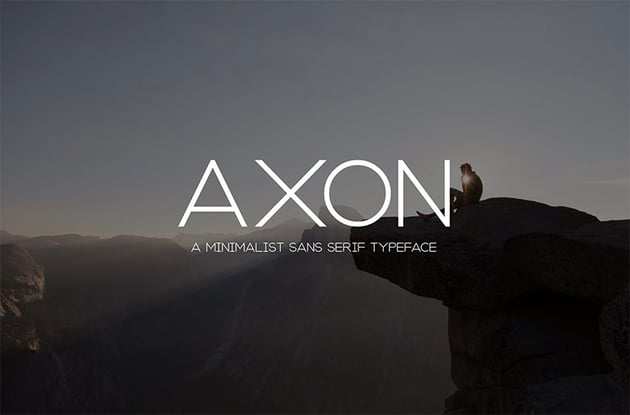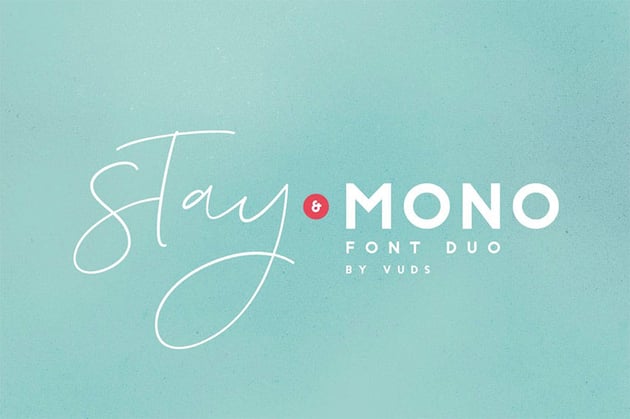
15 Best Minimalist Fonts (Clean Modern Fonts to Download Now)
Minimalistic fonts can be a versatile addition to your toolkit. In addition, the perfect minimalist font can help craft a clean, stylish look. Check out this list of modern minimalist fonts for some design inspiration.
15 Minimalistic Fonts to Download Now
1. Beckman Modern Minimalist Font Family (OTF, TTF)
How's this for a cool minimalist font? Minimal fonts like this one combine geometric elements with typography that's completely modern and eye-catching. Beckman offers six different font weights that can be mixed and matched to create your own unique look.
This font is a great choice for:
- If you're looking for dramatic display type but you still want it to fit a clean, modern aesthetic, a font like this could be a perfect choice.
- This font also has the potential to be displayed at different sizes as it stays pretty legible even when small.
- If your design already has a lot of geometric influence, this font could fit right in. Try pairing it with different shapes or lines to play into this aesthetic.
Keep an eye out for:
- This font may not be the strongest choice for body copy, as it is quite visually distinctive. It may prove to be more difficult to read a lot of text in this font.
- Try pairing this font with another neutral font, like a clean sans serif with fewer decorative elements.
2. Zevida Minimalist Sans Serif Font Family (OTF, TTF, WOFF)
This minimalist sans serif font is a simple but elegant font that looks stunning on titles, magazine covers, invitations, headers, signage, etc. The font is offered in four weights—regular, light, thin, and bold—and includes both upper and lowercase letters, numbers, punctuation, and various accents.
This font is a great choice for:
- Clean modern fonts are a versatile addition to any font collection. Since this modern minimalist font comes with a variety of weights, it means it can fill a variety of roles in your designs.
- This font is also a wonderful supplement. It could pair well with a variety of different types of content.
- You could also use this font for body copy as it's clean, legible, and has strong readability at a variety of sizes.
Keep an eye out for:
- Try pairing a minimalistic font with something more graphical, like a display font.
- With the thinner weights, make sure to keep an eye on legibility at really small sizes. You'll want to make sure the contrast helps keep the font easy to read.
3. Agatha Minimalist Calligraphy Font (OTF, TTF)
When you think of minimalism, you don't often think of minimalist cursive fonts, but Agatha is a minimalist handwritten font that's perfect when you need that hand-crafted look in your projects. The font includes upper- and lower-case characters, numbers, and punctuation.
This font is a great choice for:
- Minimalist calligraphy fonts are clean and beautiful, but are still largely display type. Consider using this font for a focal point.
- Likewise, this font is likely best served at larger sizes.
- Given how clean this font is, you could likely dress it up or make it informal, based on your design choices. Try this in a gold foil for luxury, or try it with watercolour textures for a more informal, artsy vibe.
Keep an eye out for:
- If your target aesthetic requires minimalist typography, consider pairing this with another minimalist font. Something like a clean, simple sans serif could pair nicely.
- Avoid larger passages of copy in this font, as it could prove to be overwhelming to read.
4. Filena: Minimalist Sans Serif Font (OTF, TTF)
This minimalist sans serif font might be too simple for some tastes, but therein lies its power. The uppercase font comes in three weights, allowing you to dress it up or down according to your needs. Modern minimalist fonts, like this one, can be a very versatile choice.
This font is a great choice for:
- Modern clean fonts, like this one, can work very well for body copy. Because of its neutrality, it can read well when you have a lot of text.
- Again, however, this can really be dressed up or down. You have the flexibility to pair this with a variety of design elements to influence the overall aesthetic.
- If you're looking for a clean minimalist font to pair with a more decorative display font, this could be a great choice.
Keep an eye out for:
- With thinner weights, keep an eye on this font at smaller sizes. They may prove to be harder to read, so you may want to try a bolder weight or a higher contrast colour.
- If you do opt to use this in a font duo, make sure to pick a second font that complements. Something like a script font could be a great choice!